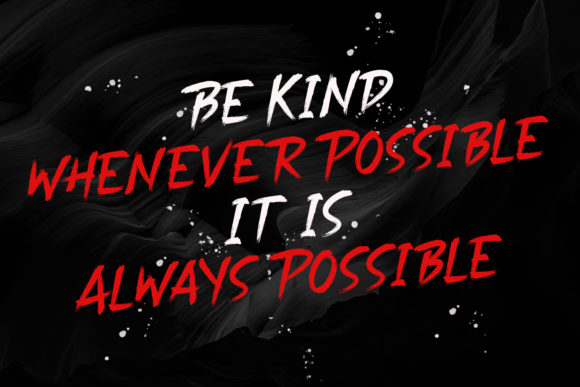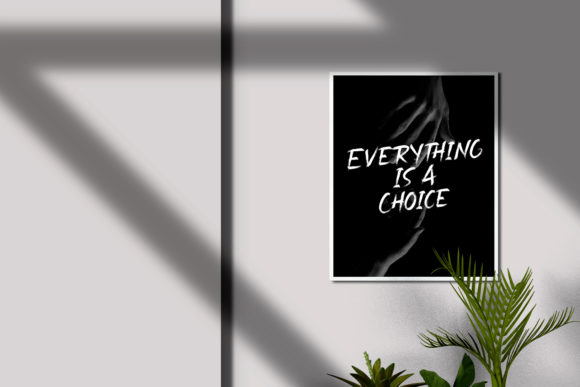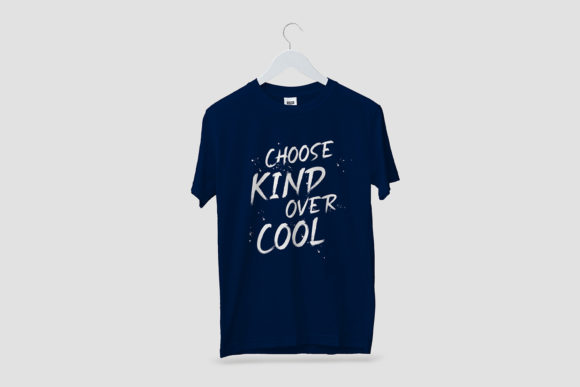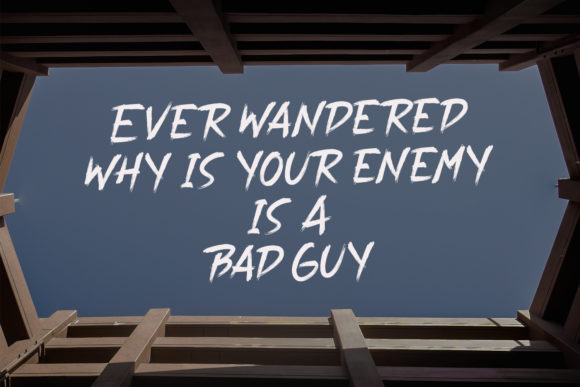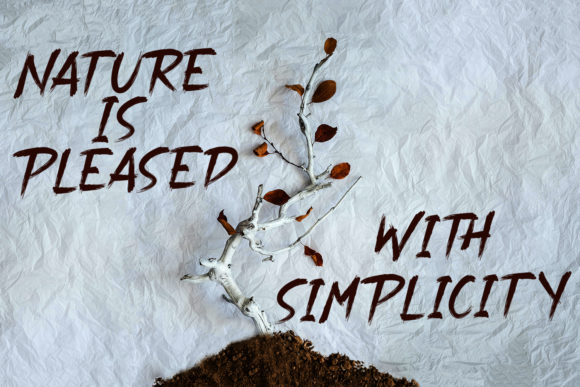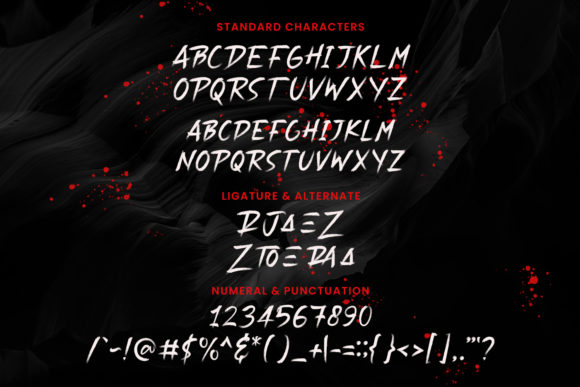
Introduction to Ratoela Font
As a designer, there’s nothing quite like that moment of pure creative bliss when a project comes together. You’ve spent hours pouring over sketches, testing different fonts, and tweaking the layout, and finally, it all clicks into place. For those of us who’ve been there, we know the importance of having the right design resources at our fingertips. That’s where the Ratoela Font comes in – a high-quality, urban styled font that’s about to become your new go-to.
With its rough, textured look and neat, clean lines, the Ratoela Font is the perfect addition to any creative project. Whether you’re working on a design for a friend’s business, a logo for your own brand, or just a fun little project for yourself, this font is sure to add a touch of sophistication and style. And the best part? It’s available for a free download, complete with a transparent background for seamless integration into your design.
Key Features of Ratoela Font
- High-quality design resource perfect for creative projects, offering a unique and elegant look.
- Features a transparent background, allowing for easy customization and layering in design projects.
- Includes a range of font styles, including bold, italic, and regular, to cater to different design needs.
Honest Review: Ratoela Font
I recently came across the Ratoela Font and I have to say it’s a great addition to any designer’s toolkit. This free download is perfect for those who want a high-quality font for their creative project.
- ✨ The Ratoela Font is incredibly versatile and can be used for a wide range of design applications, from headings to body text.
- ✨ The font has a modern and sleek design, making it perfect for contemporary designs.
- ✨ The transparent background makes it easy to work with, allowing for seamless integration into any design project.
Overall, I’m impressed with the Ratoela Font. It’s a great design resource that’s perfect for personal projects or small-scale commercial use. With its modern design and high-quality feel, it’s a great addition to any designer’s toolkit.
Using Ratoela Font in Creative Projects
The Ratoela Font is perfect for creative projects that require a unique and elegant touch. With its transparent background, you can easily combine it with other design elements to create stunning visual effects.
The Ratoela Font is ideal for:
Tips for Getting the Most Out of Ratoela Font
To get the most out of the Ratoela Font, experiment with different font sizes, colors, and combinations to create unique and eye-catching designs.
Alternatives to Ratoela Font
Open Sans is a popular, high-quality sans-serif font ideal for creative projects that require a clean and modern look. It’s a great design resource for websites, apps, and other digital platforms. When to use: Use Open Sans for body text in digital products, such as articles, blog posts, and social media content.
Comparison to Ratoela Font: Open Sans has a more neutral tone and is more versatile than Ratoela Font, making it suitable for a broader range of creative projects.
Lato Font is a beautiful, high-quality sans-serif font that works well for creative projects requiring a sophisticated and elegant look. It’s a great design resource for logos, branding, and other visual identity projects. When to use: Use Lato Font for headings, titles, and other prominent text elements in creative projects.
Comparison to Ratoela Font: Lato Font has a more refined and polished look compared to Ratoela Font, making it suitable for projects that require a high level of sophistication.